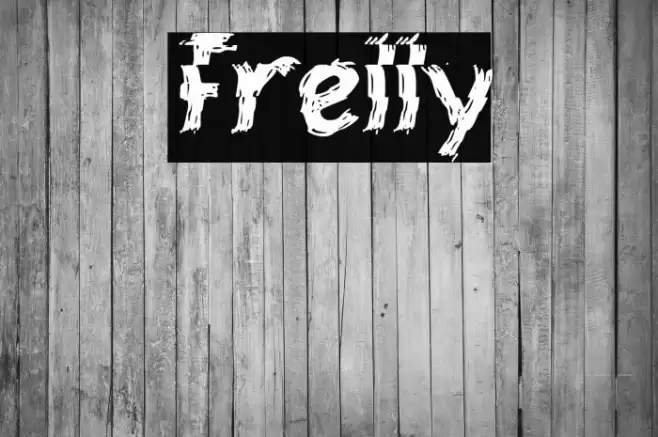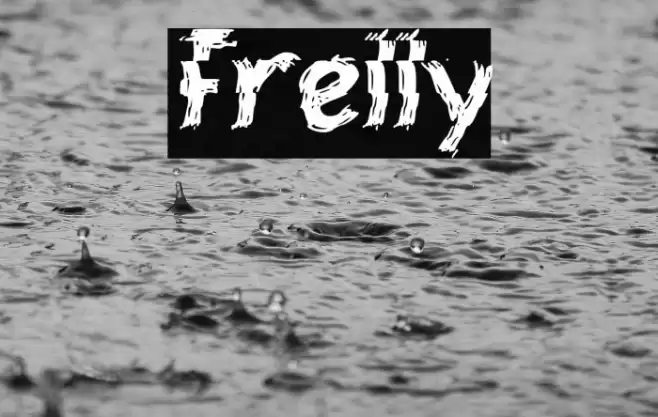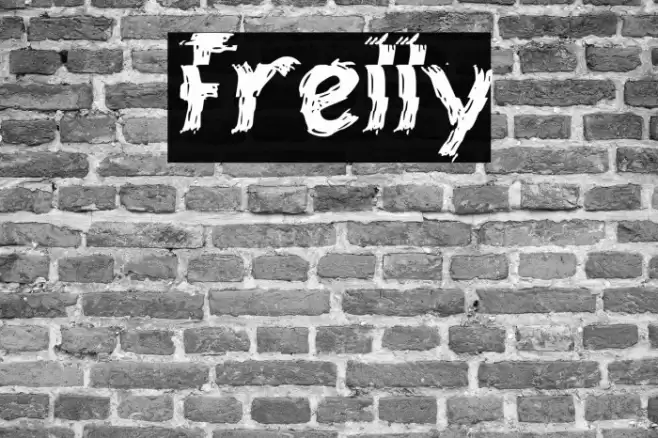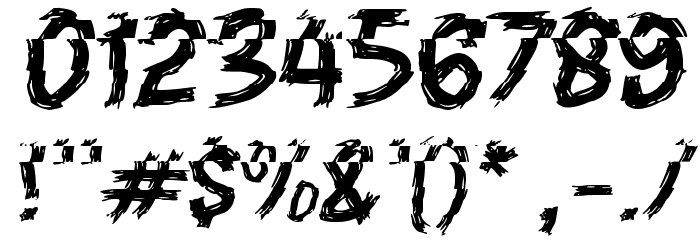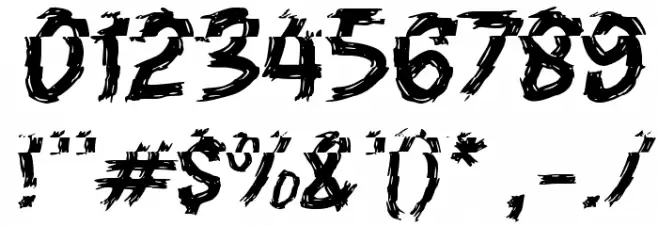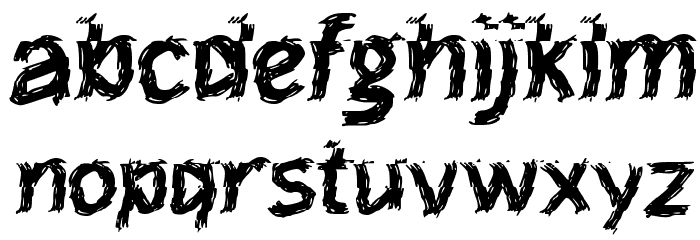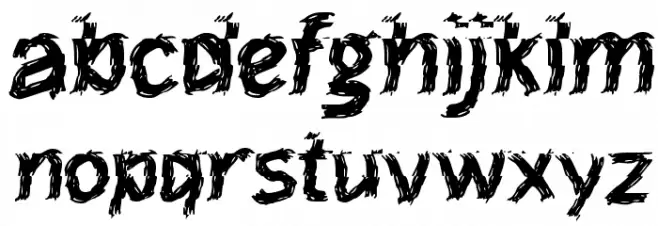
Frelly Font
Frelly Description
This font exhibits a highly decorative and chaotic style, characterized by its jagged and irregular strokes that give it an edgy, distressed appearance. The letters appear as if they are sketched with a rough hand, creating a sense of movement and energy. The uppercase and lowercase letters maintain a consistent style, with exaggerated serifs and uneven lines that contribute to its unique aesthetic. Numbers and special characters follow the same design principles, ensuring a cohesive look across all glyphs. This font is ideal for projects that require a bold, eye-catching statement, such as posters, album covers, or Halloween-themed designs.
A chaotic, distressed font with jagged, irregular strokes and a bold, energetic style from Uncategorized fonts.
- Proposed Projects: Ideal for posters, album covers, Halloween themes, or any project needing a bold statement.
- Contrast: High